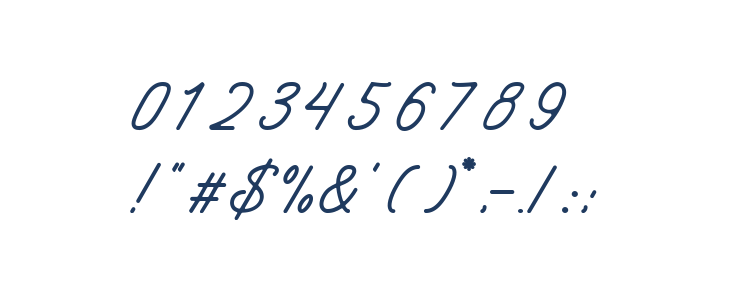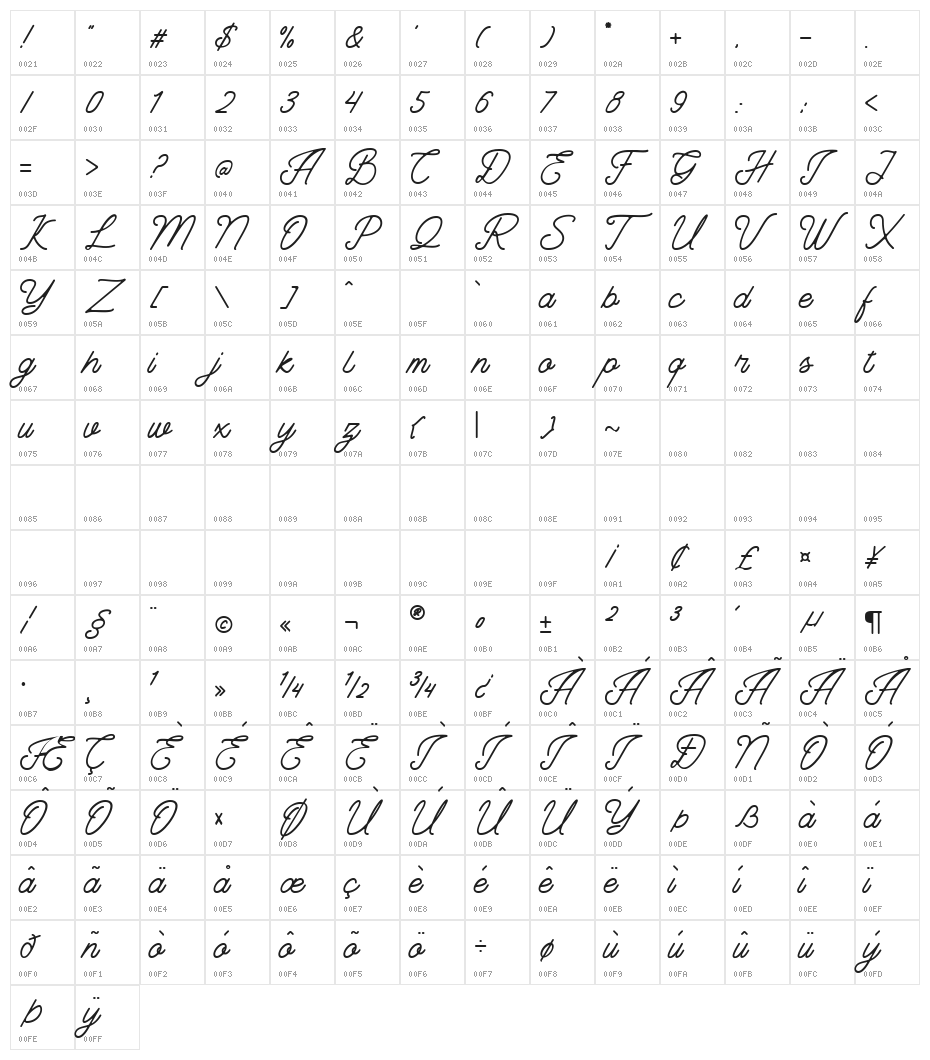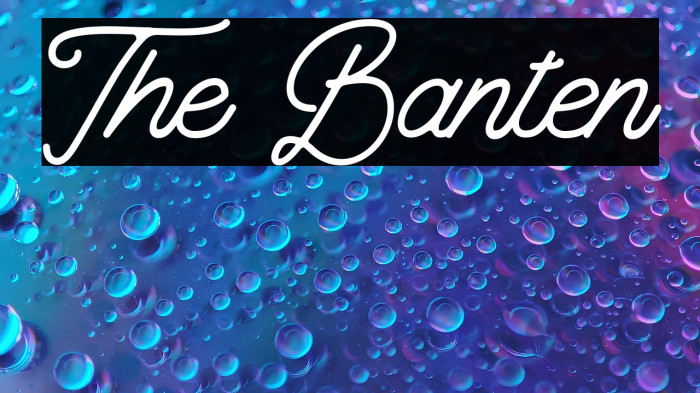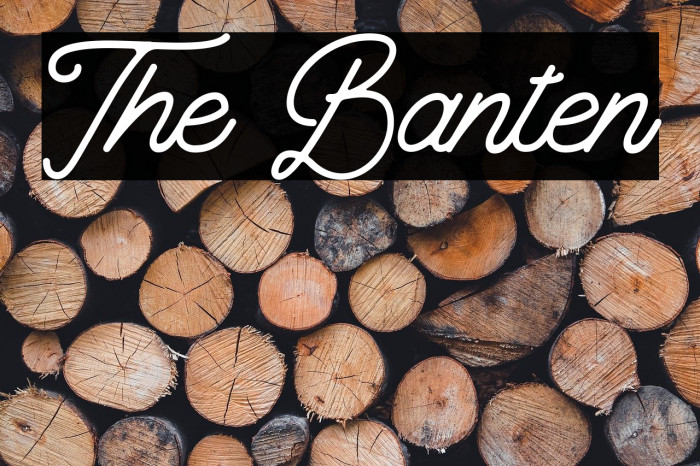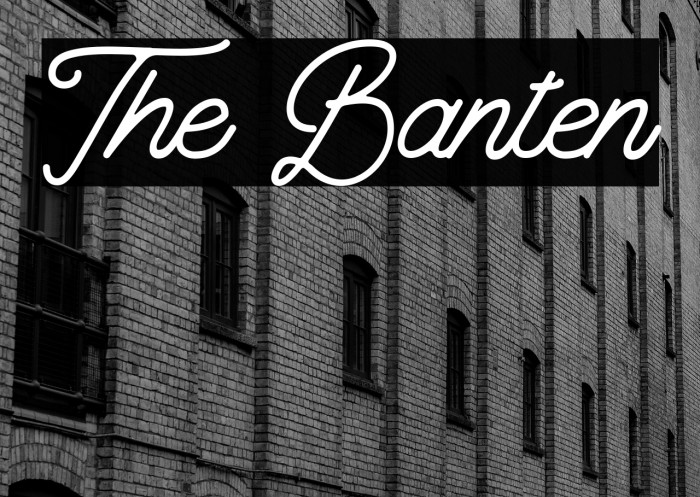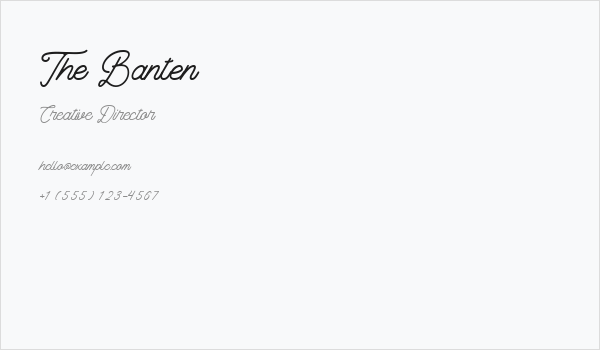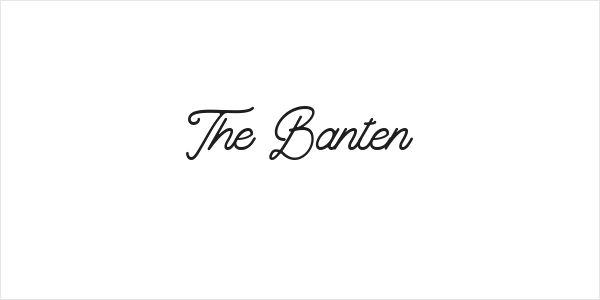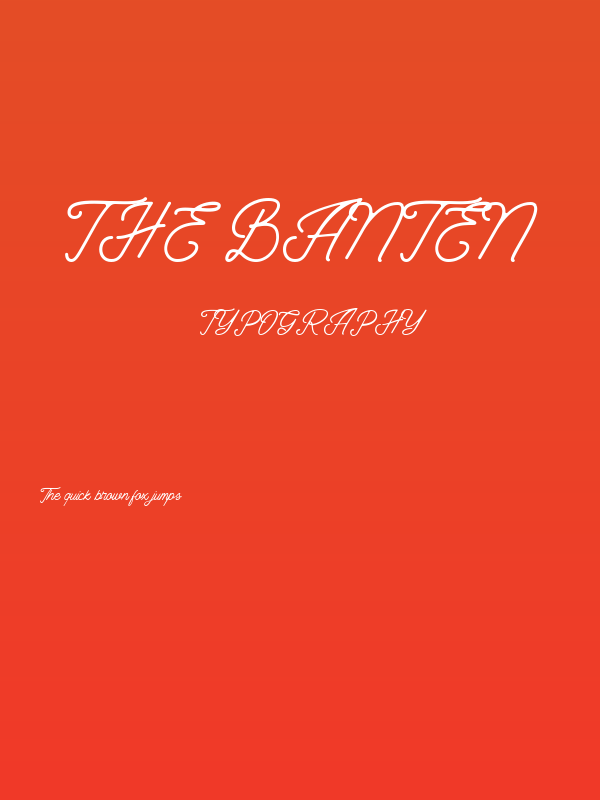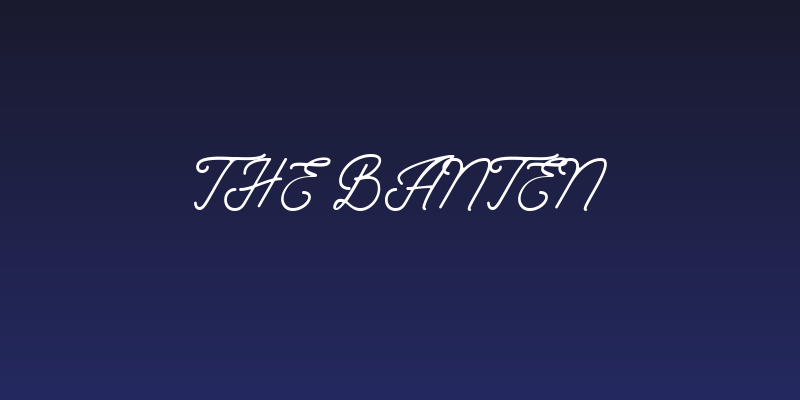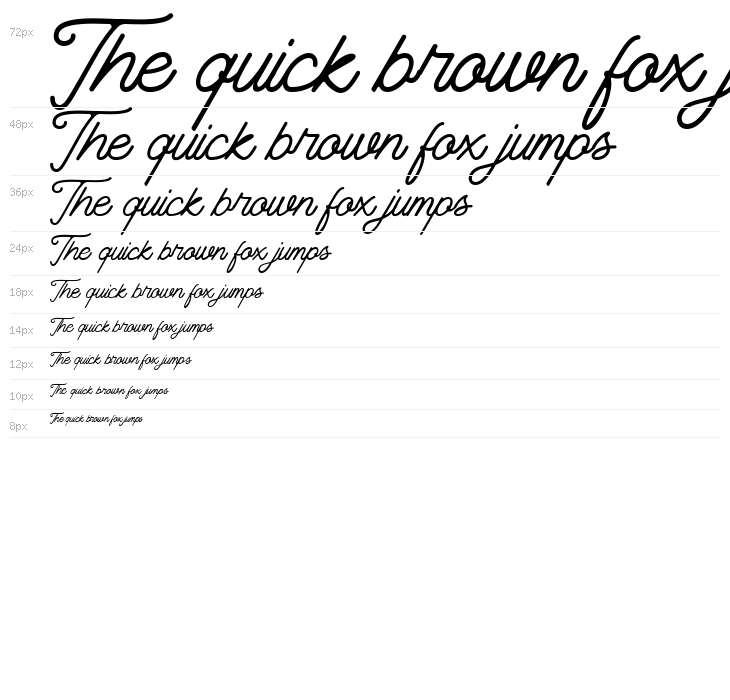
The Banten Font
The Banten Description
This font features a classic cursive style with elegant, flowing lines that mimic traditional handwriting. The uppercase letters are slightly more ornate, with flourishes that add a touch of sophistication. The lowercase letters maintain a consistent slant, creating a harmonious and connected appearance. Numbers are clear and legible, maintaining the cursive style without compromising readability. Special characters are well-integrated, matching the overall aesthetic. The font's smooth curves and consistent stroke width make it versatile for various design applications.